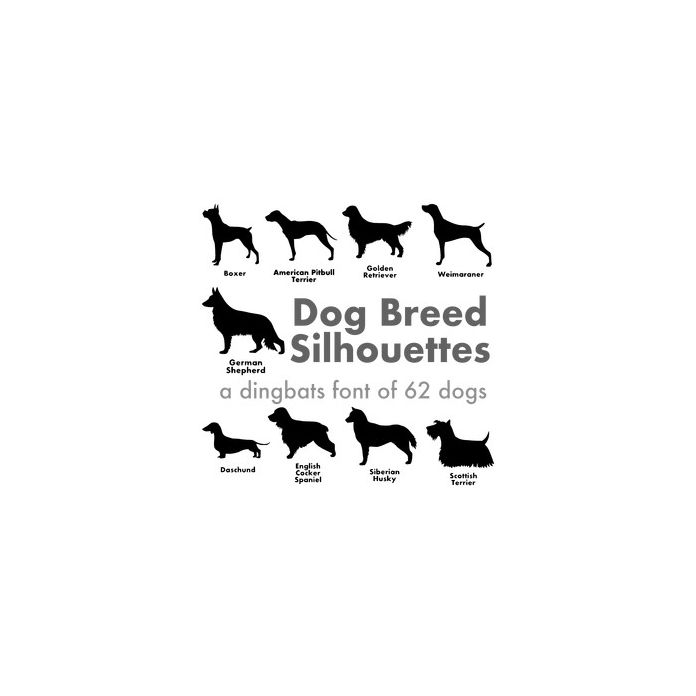
Not entirely alphabetized (because certain letters were difficult), but this dingbats font includes 62 different dog breed silhouettes, all labeled. Capital letters, lower case letters, and 0-9. Where possible, the capital letters are also large dogs, and the lower case letters are smaller dogs.